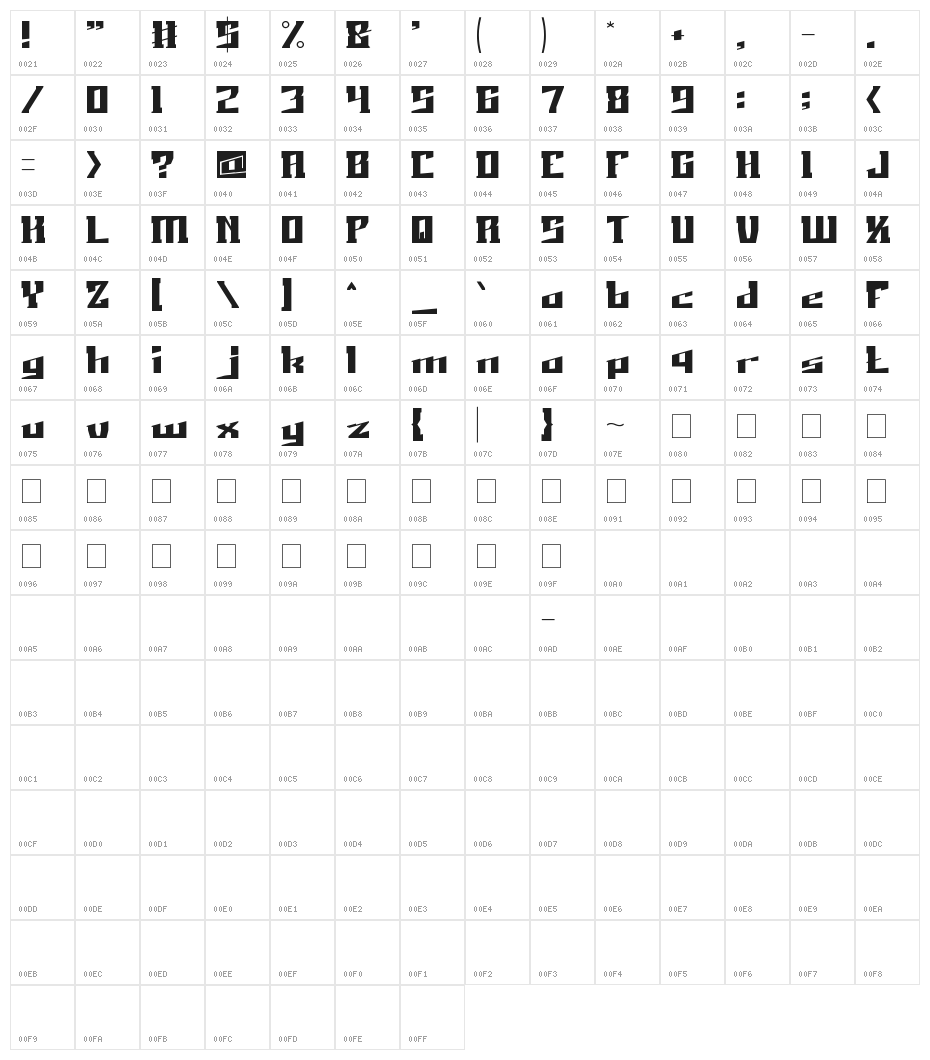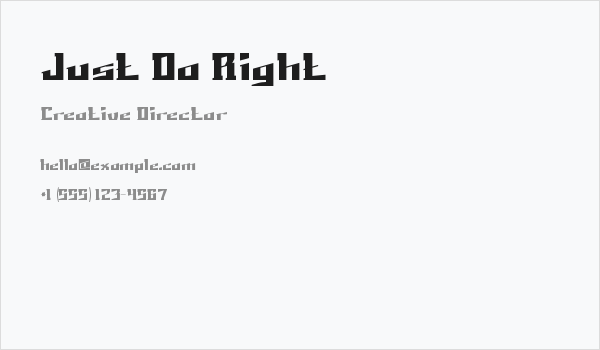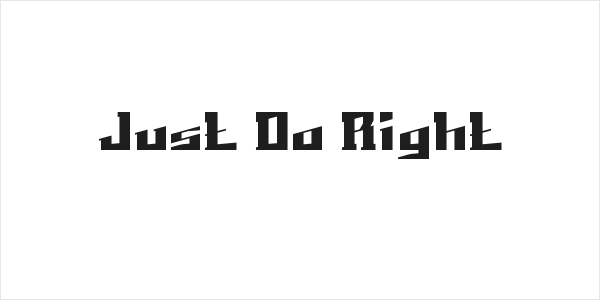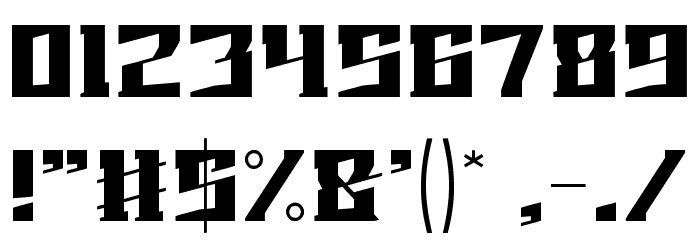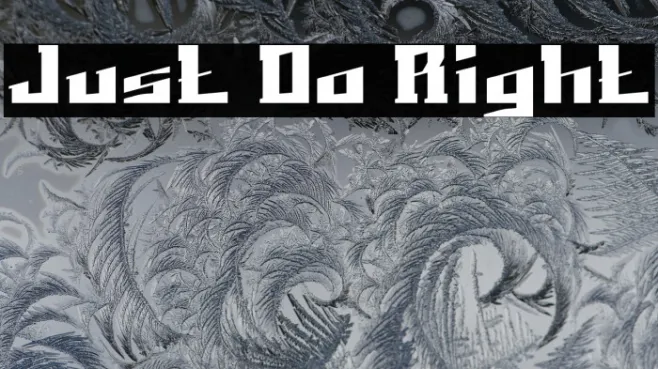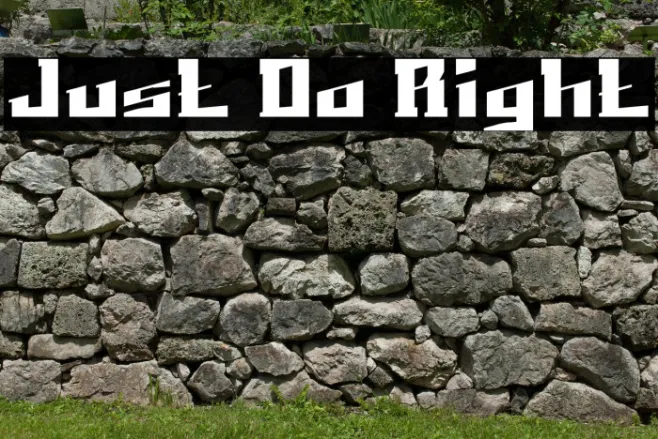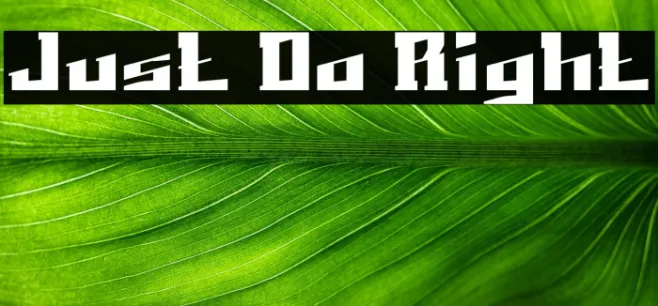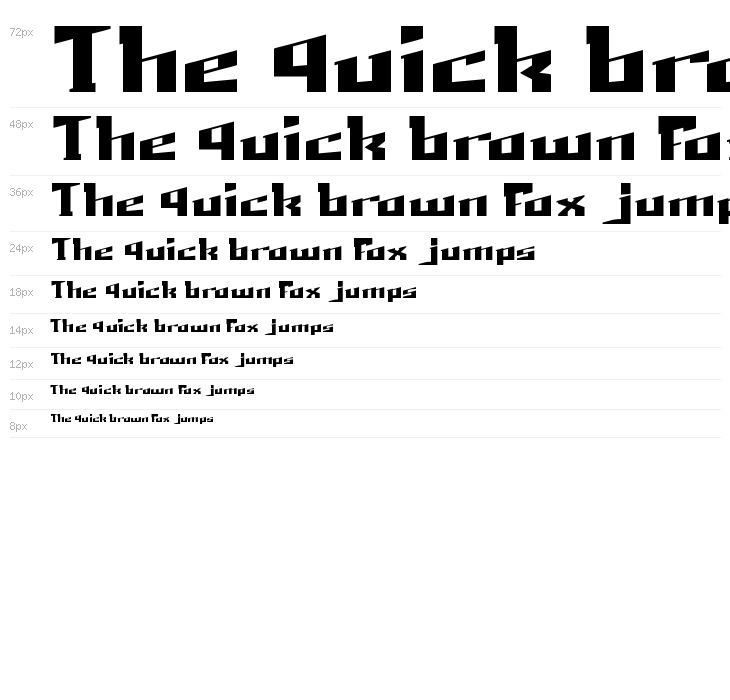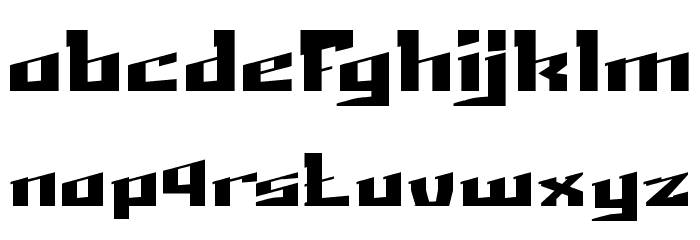
Just Do Right Font
This font features a bold and dynamic design with sharp, angular edges and a strong geometric structure. The uppercase letters are particularly striking, with a blocky appearance that commands attention. The lowercase letters maintain the same angular style, offering a cohesive look throughout. Numbers and special characters are designed with the same boldness, ensuring consistency across all text elements. The font's unique style makes it ideal for projects that require a modern and edgy aesthetic.